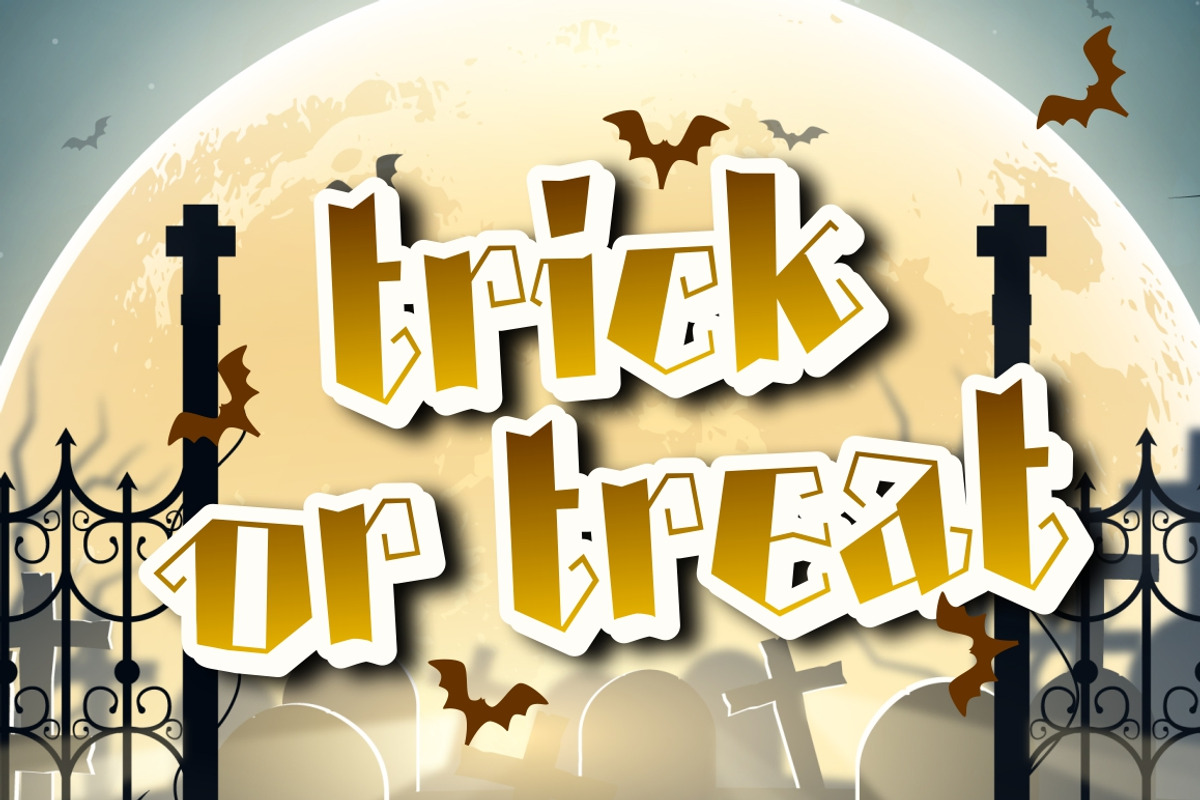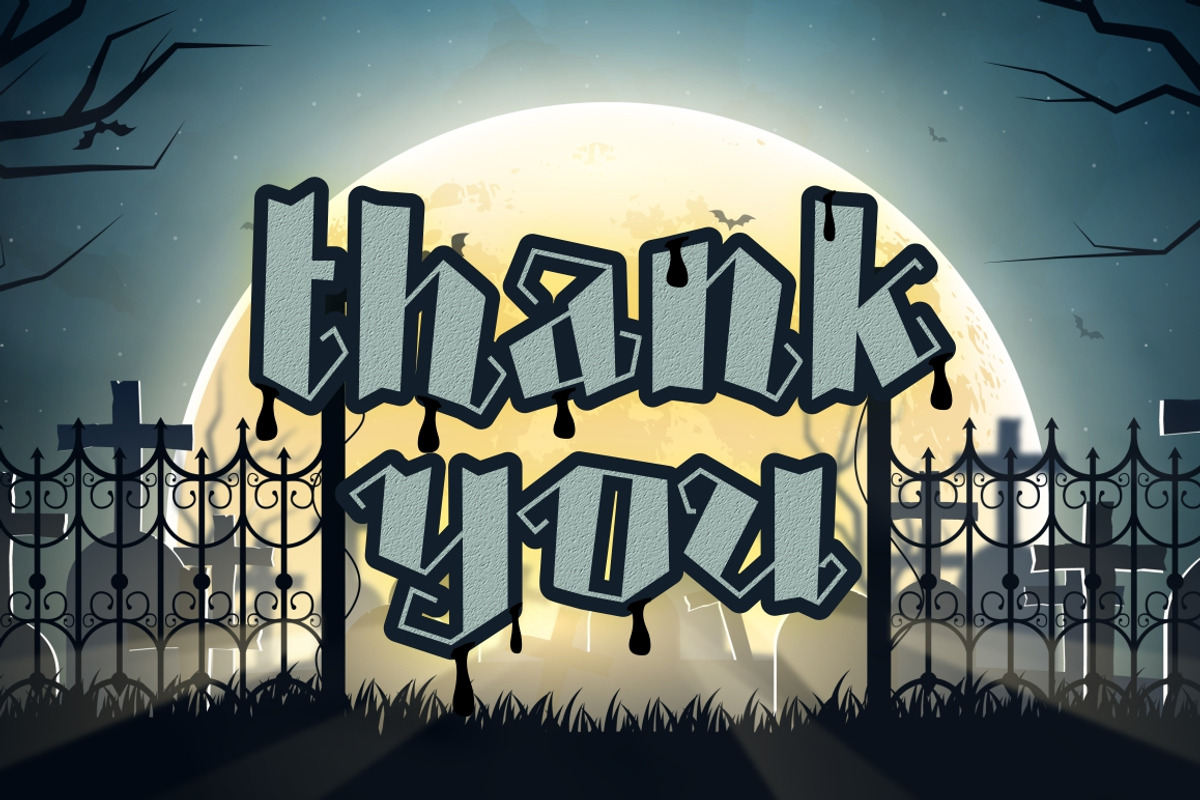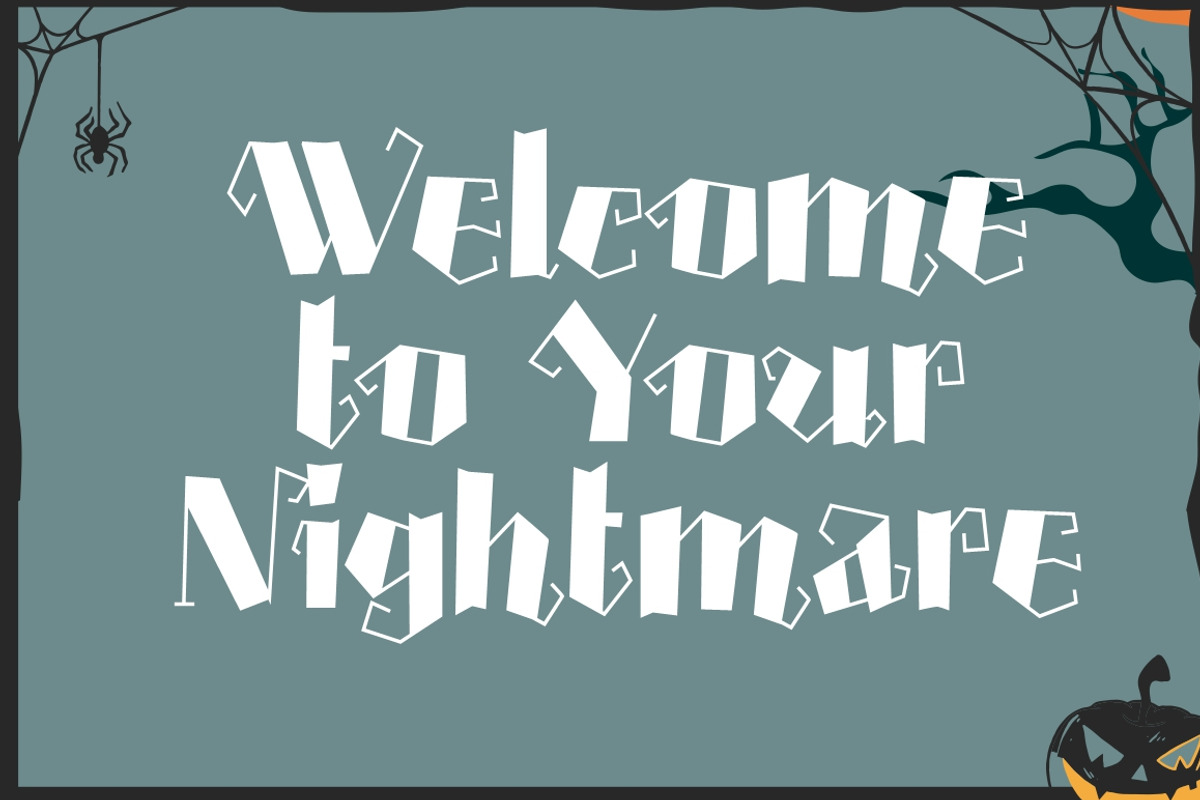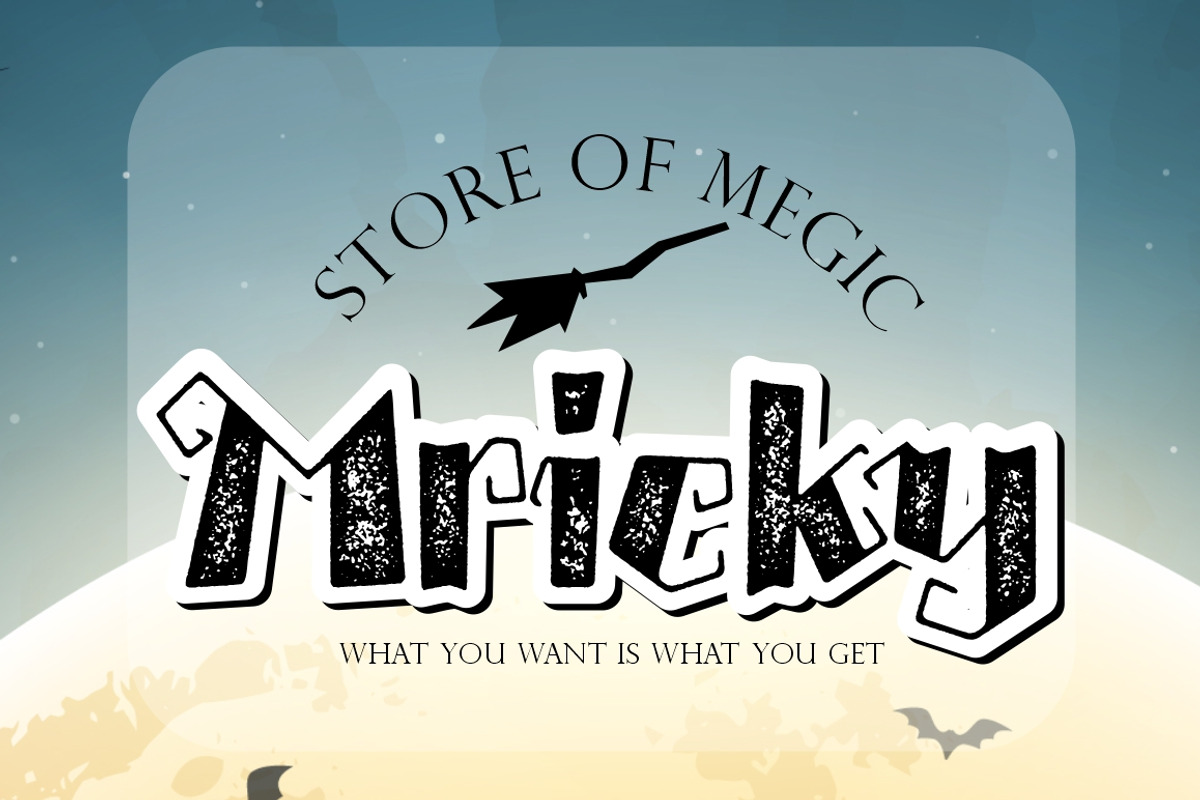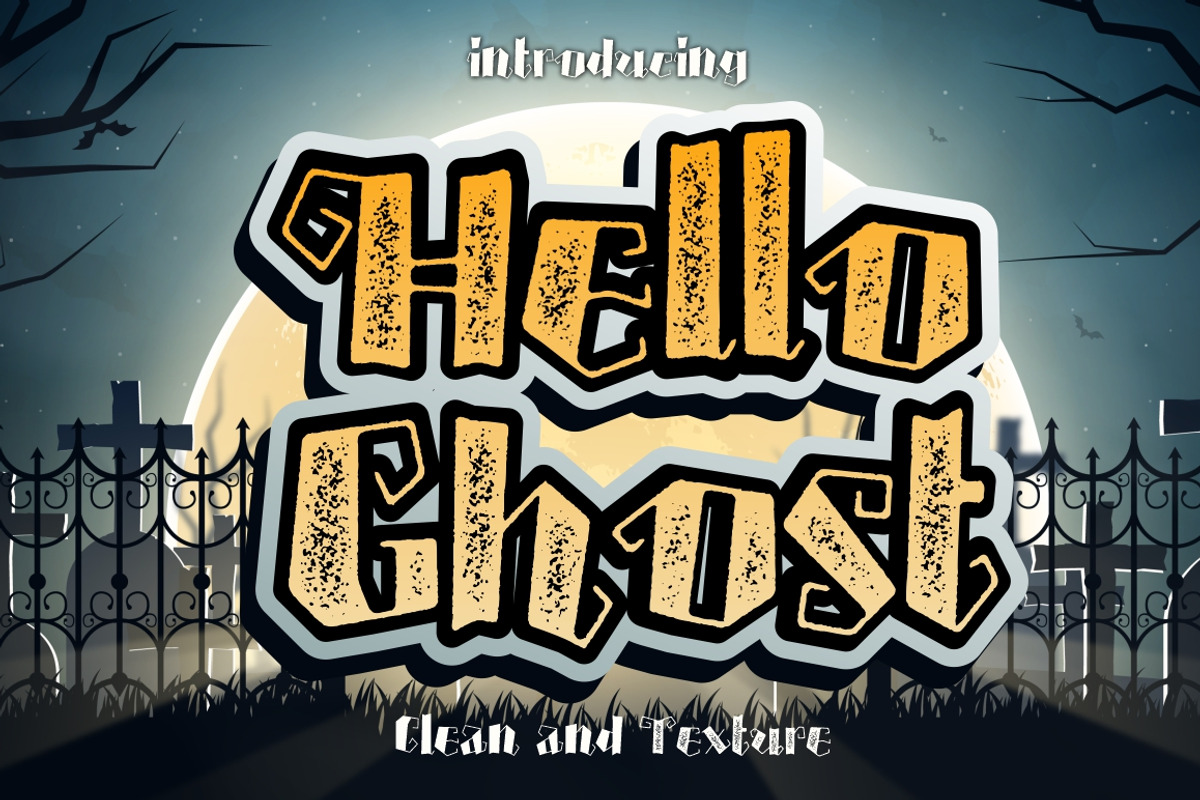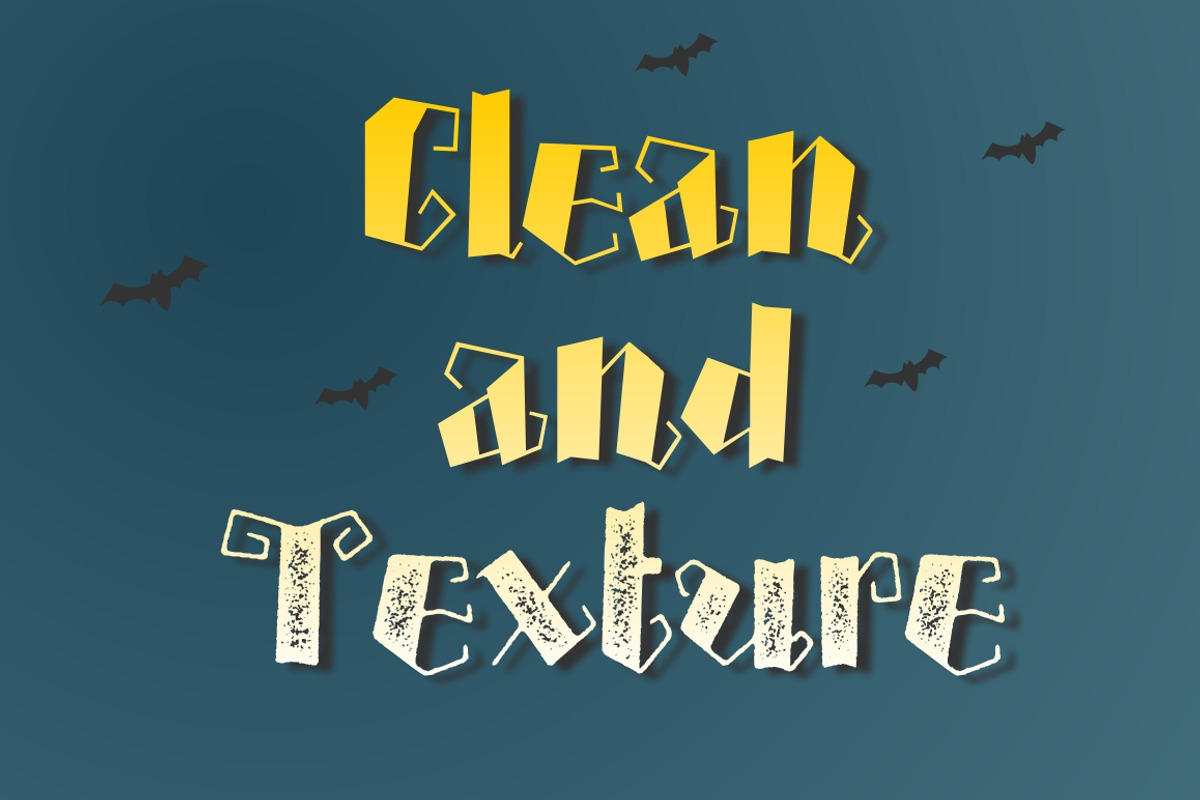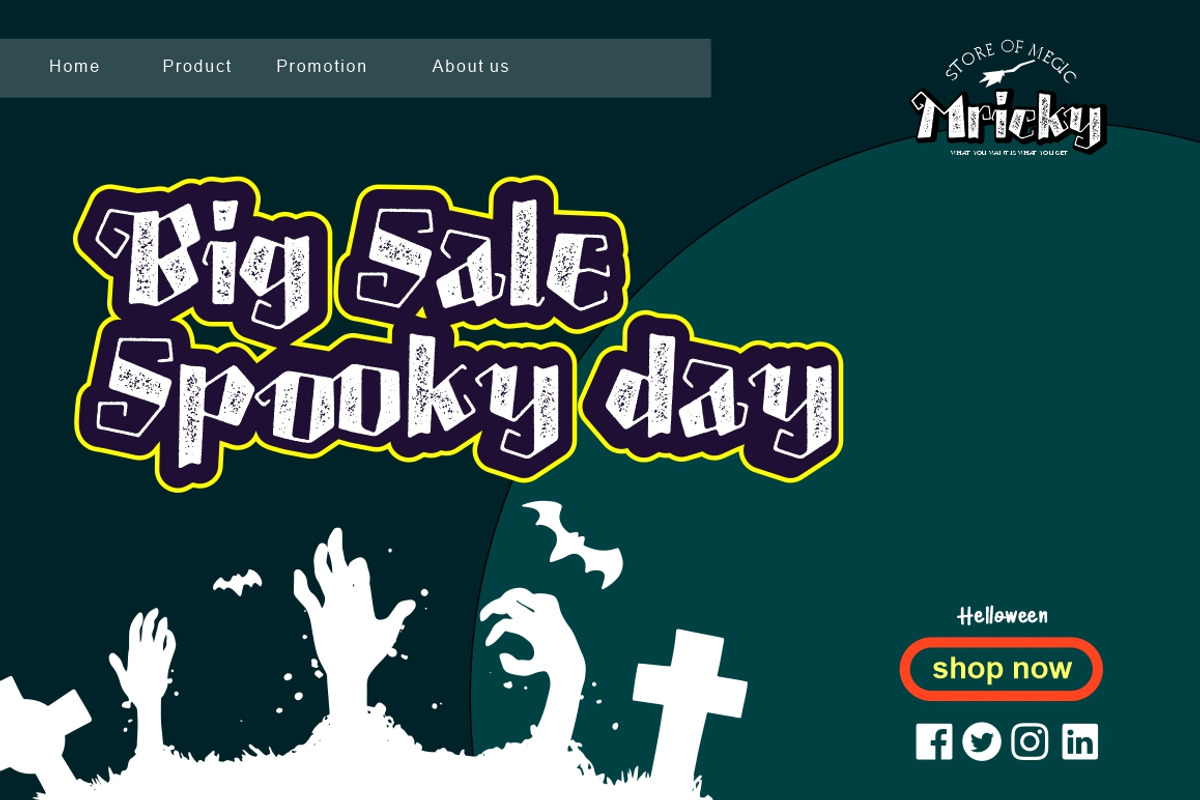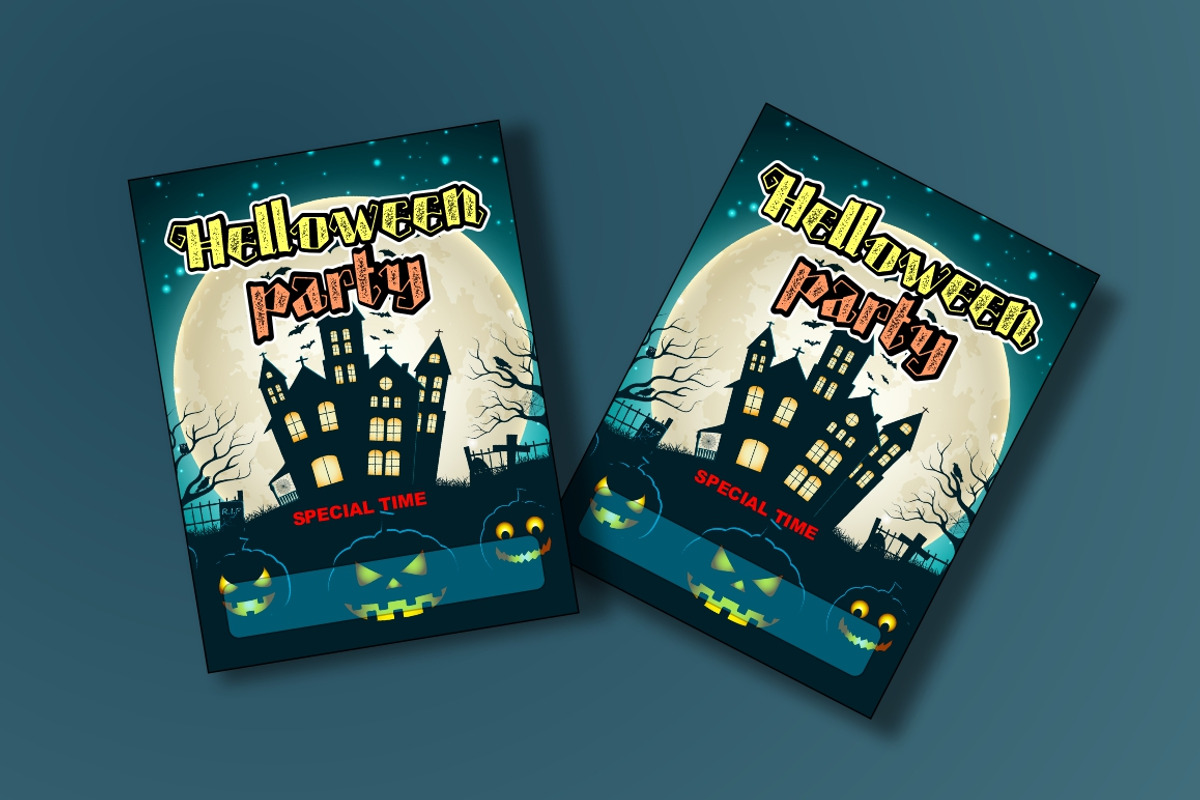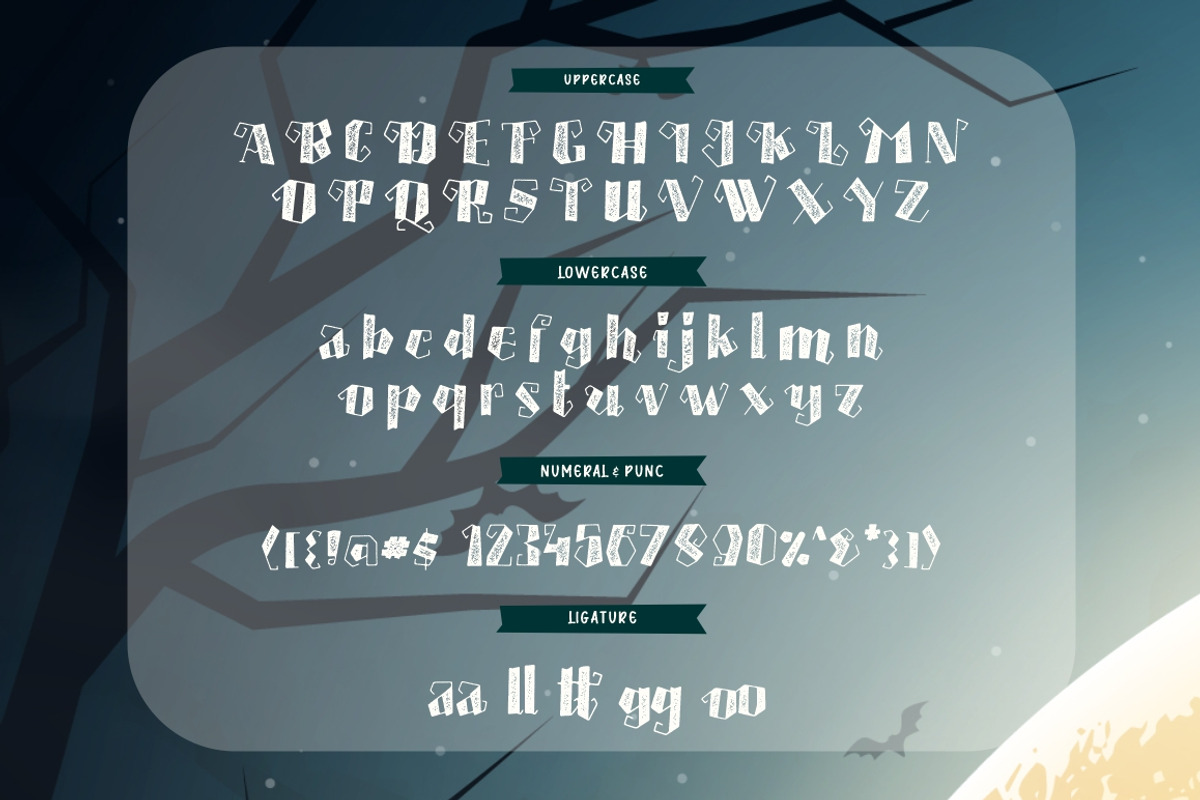
Hello Ghost - 2 weights.
Hello Ghost is a rough textured and cool display font. It looks both charming and interesting and it will most certainly make your designs look spooky.
hello gost comes with two weights.
- hello ghost clean
- hello ghost texture
This font is very suitable for Halloween events, logos. brochure. movie title.